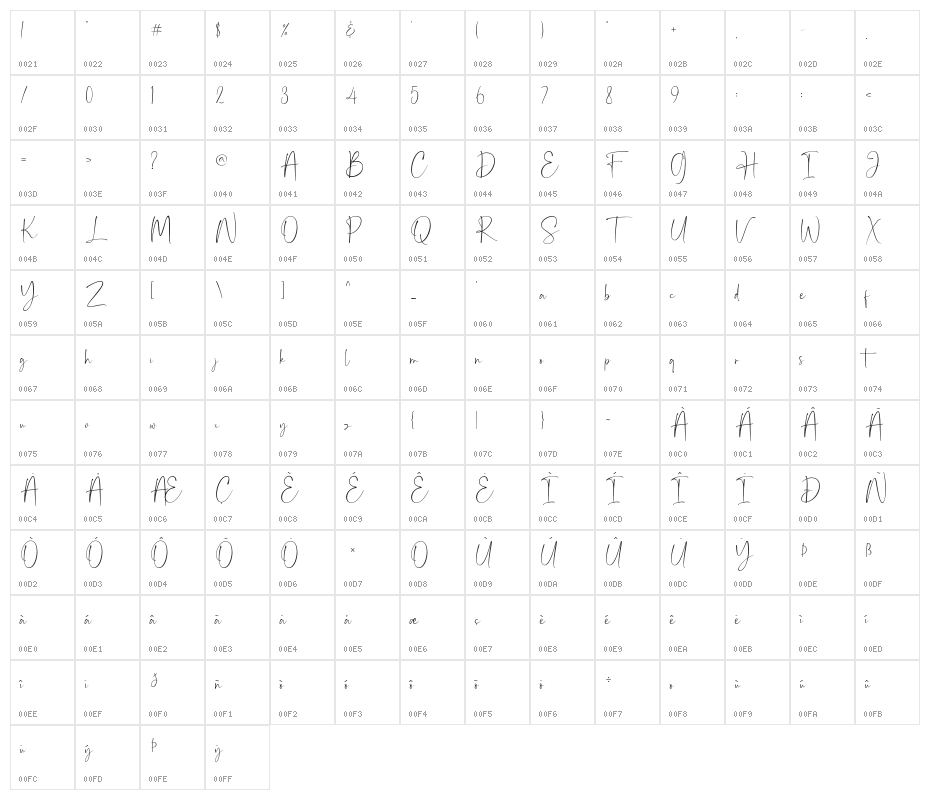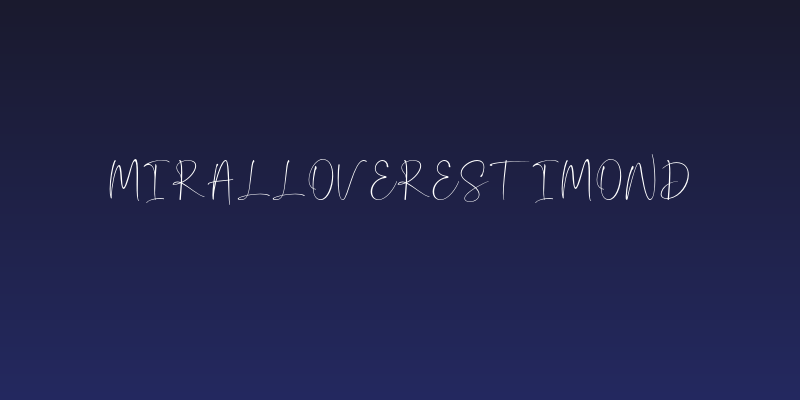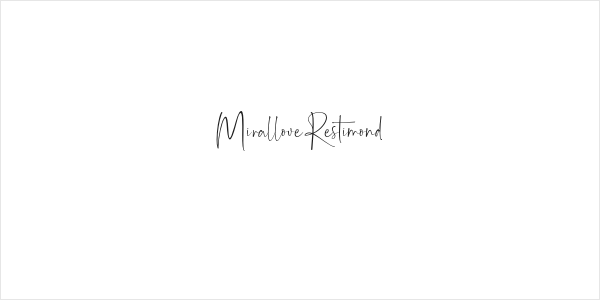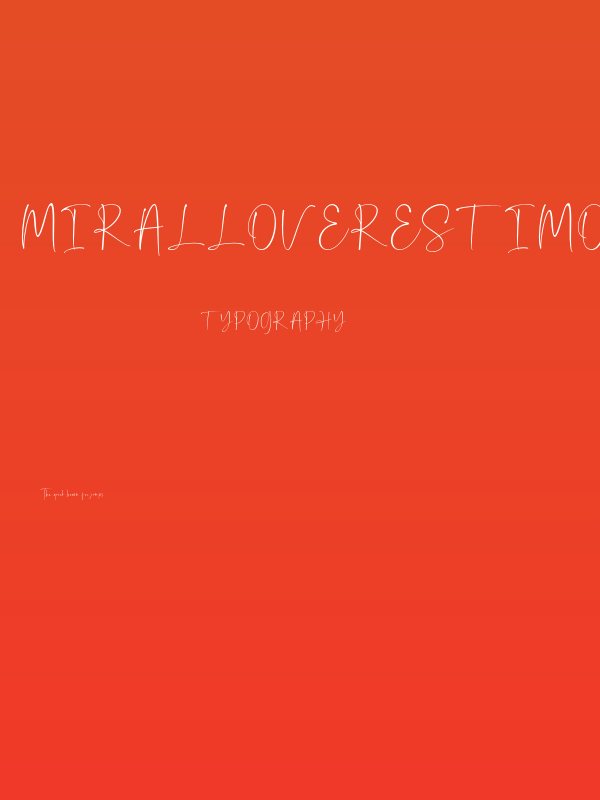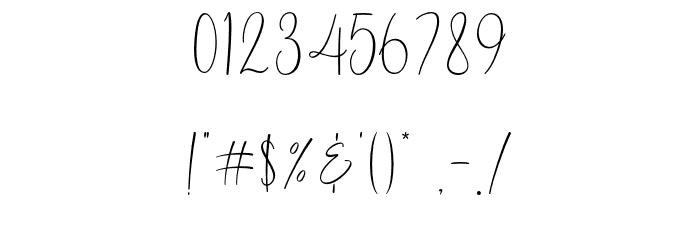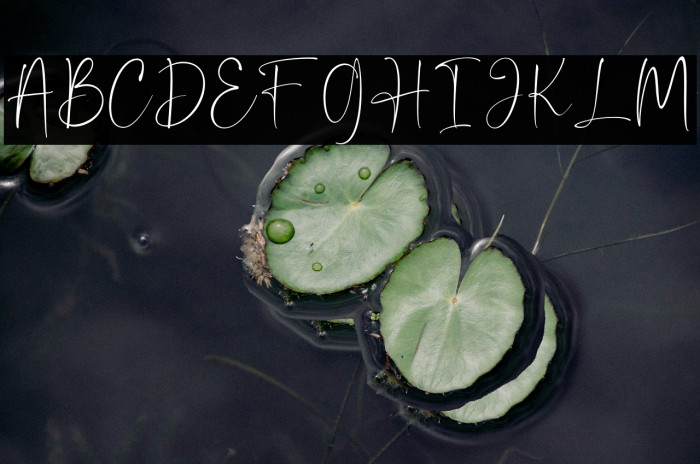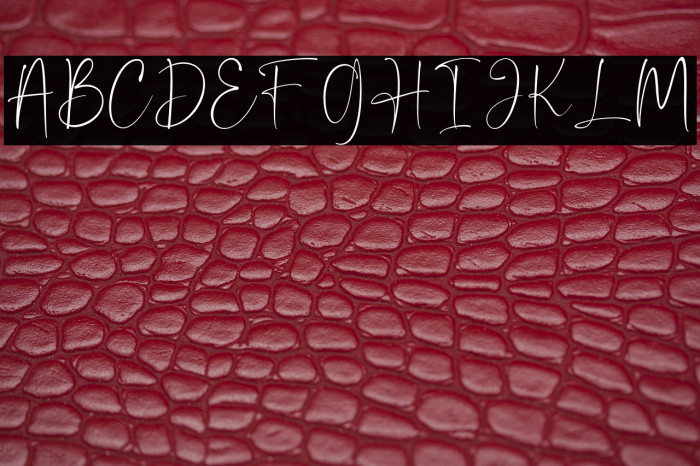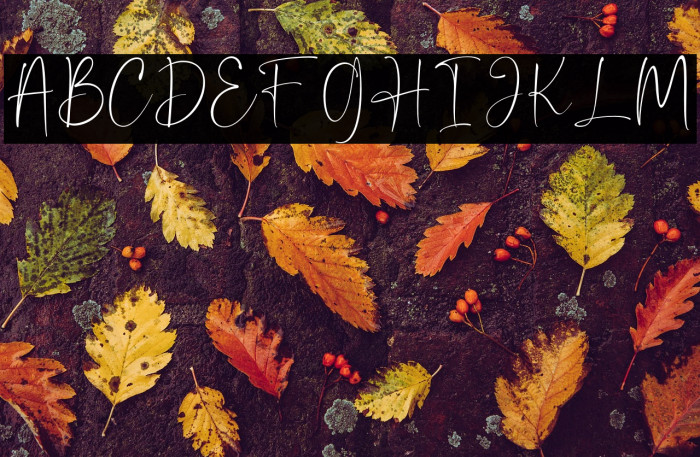
MiralloveRestimond Font
MiralloveRestimond Description
This font features a delicate and flowing handwritten style, characterized by its elegant and whimsical strokes. The uppercase letters are tall and slender, with a slight slant that adds a touch of sophistication. The lowercase letters maintain a consistent flow, with smooth curves and loops that enhance its handwritten appeal. The numerals are clear and legible, complementing the overall aesthetic. Special characters are thoughtfully designed, maintaining the font's cohesive look. This font exudes a sense of elegance and creativity, making it suitable for a variety of design projects.
MIRALLOVERESTIMOND UPPERCASE
MIRALLOVERESTIMOND LOWERCASE
MIRALLOVERESTIMOND OTHER CHARS
| Overall Style | Elegant, Whimsical |
| Proposed Projects | Ideal for wedding invitations, greeting cards, branding, and personal stationery. |